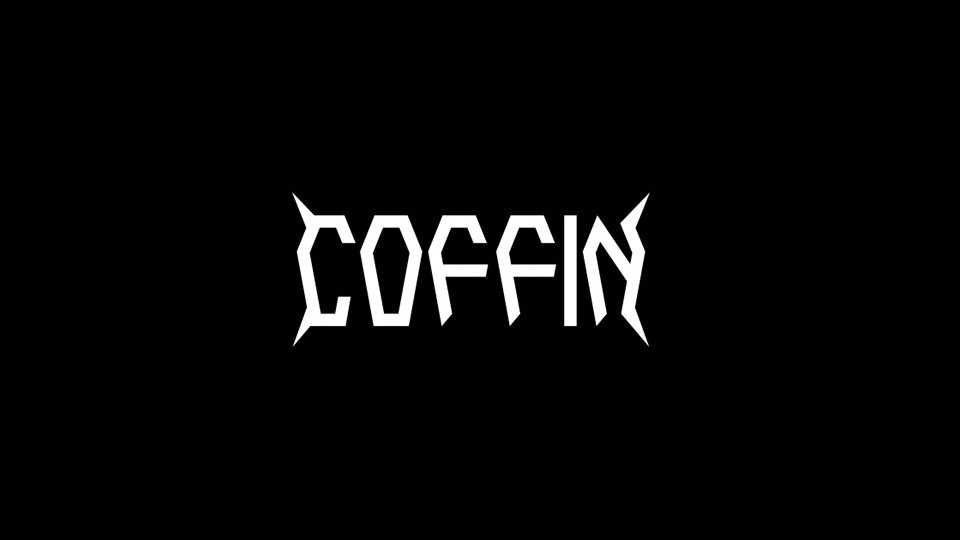
Download Coffin font, a unique typeface with letterforms based on the silhouette of a coffin. The parenthesis characters are spikes to put on the letters. The font has a lot of alternates.
Designer: Matt Smith